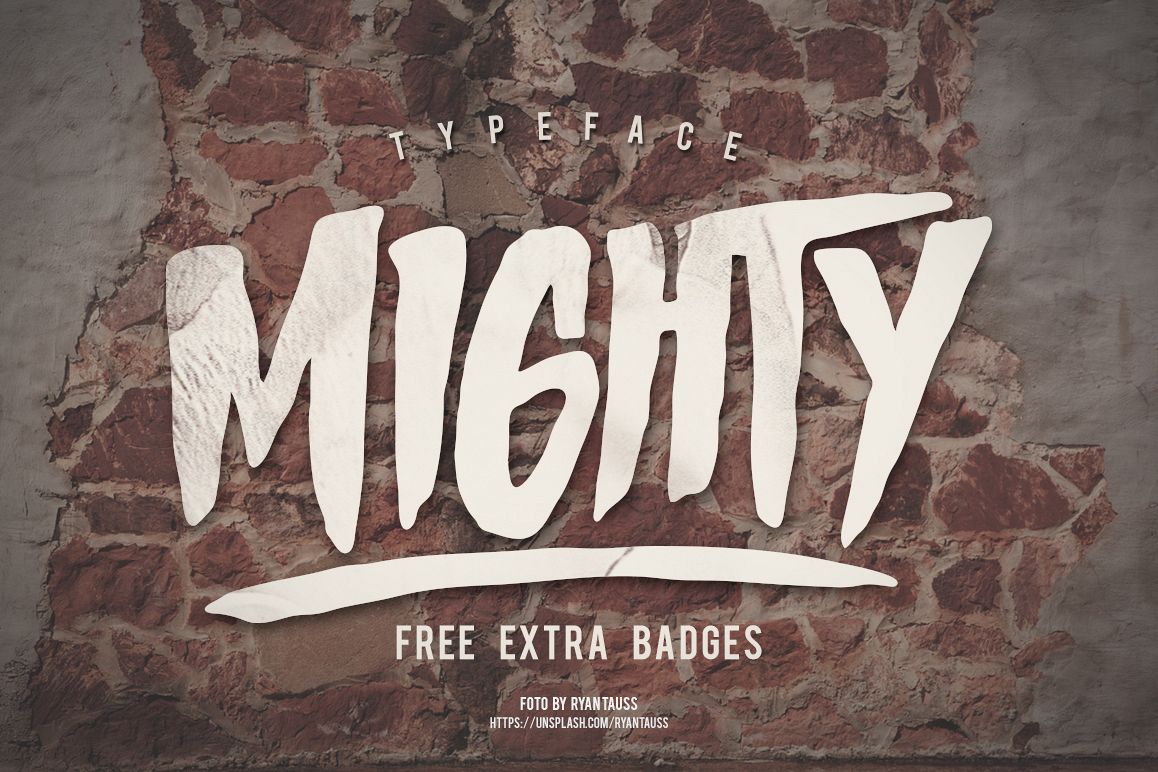
MIGHTY Typeface
MIGHTY.
MIGHTY Typeface can make it easier to convey the message in your design. Use for awesome display, labeling, clothing, movie sceen, poster, movie title, gigs, album covers, logos, and much more.